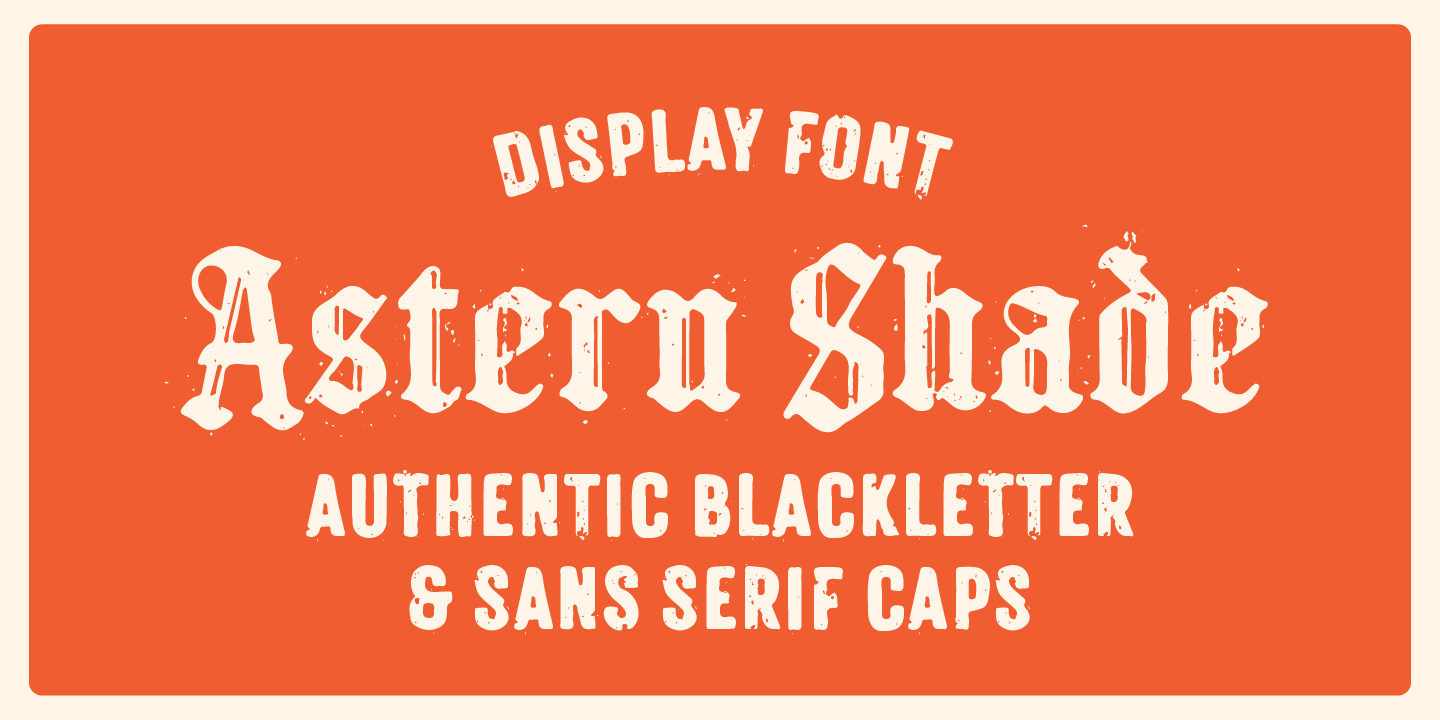
Astern Shade Font is perfect for vintage poster designs, retro advertising campaigns, classic movie titles, nostalgic branding projects, theatrical productions, old-school signage, heritage restaurant menus, antique shop logos, historical publications, and traditional craftsmanship projects that require authentic vintage typography with dimensional shadow effects.
What makes Astern Shade Font so exciting is its remarkable three-dimensional shadow effect that creates instant visual depth and vintage authenticity. This font features carefully crafted shadow elements that give each letterform a raised, dimensional appearance reminiscent of classic hand-painted signs and traditional theatrical posters. The sophisticated shadow styling adds dramatic impact while maintaining excellent legibility, making it perfect for projects that need to capture the essence of bygone eras with modern functionality.
The Astern Shade Font family includes multiple weights and styles: Regular, Bold, Light, Condensed, Extended, and varying shadow depth options. Each variant maintains the signature dimensional character while offering comprehensive flexibility for different vintage design applications and nostalgic typographic arrangements.
Vintage design enthusiasts consistently choose Astern Shade Font Free Download for projects requiring authentic retro typography with dimensional impact. Whether you're creating period-accurate advertising materials, developing heritage brand identities, designing theatrical posters, or crafting nostalgic packaging designs, this font delivers exceptional vintage authenticity and visual drama. The font's comprehensive character set includes period-appropriate glyphs and stylistic alternates while ensuring optimal performance across both digital and print applications, making it an essential tool for designers working on vintage projects that demand authentic, dimensional, and historically inspired typography solutions.